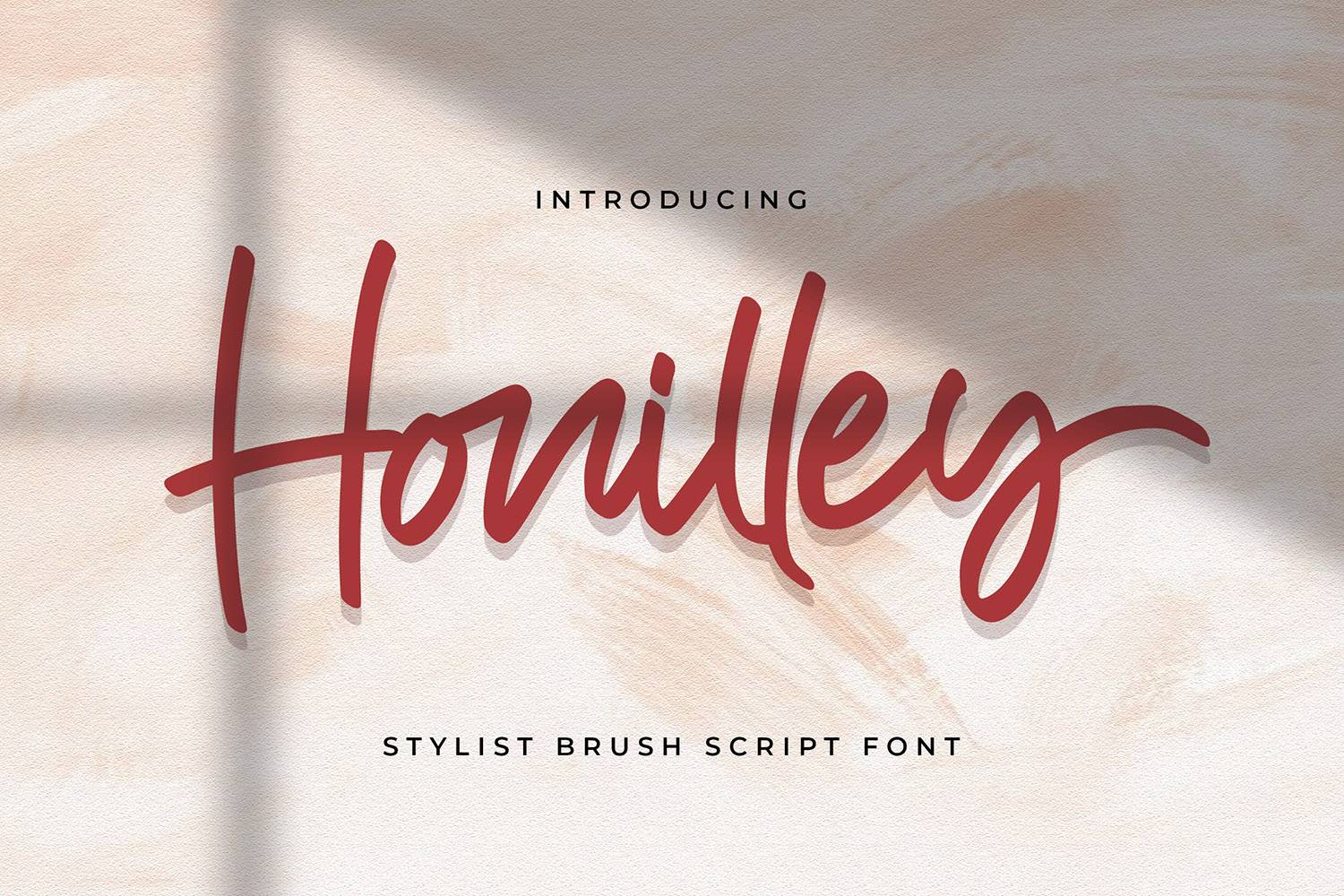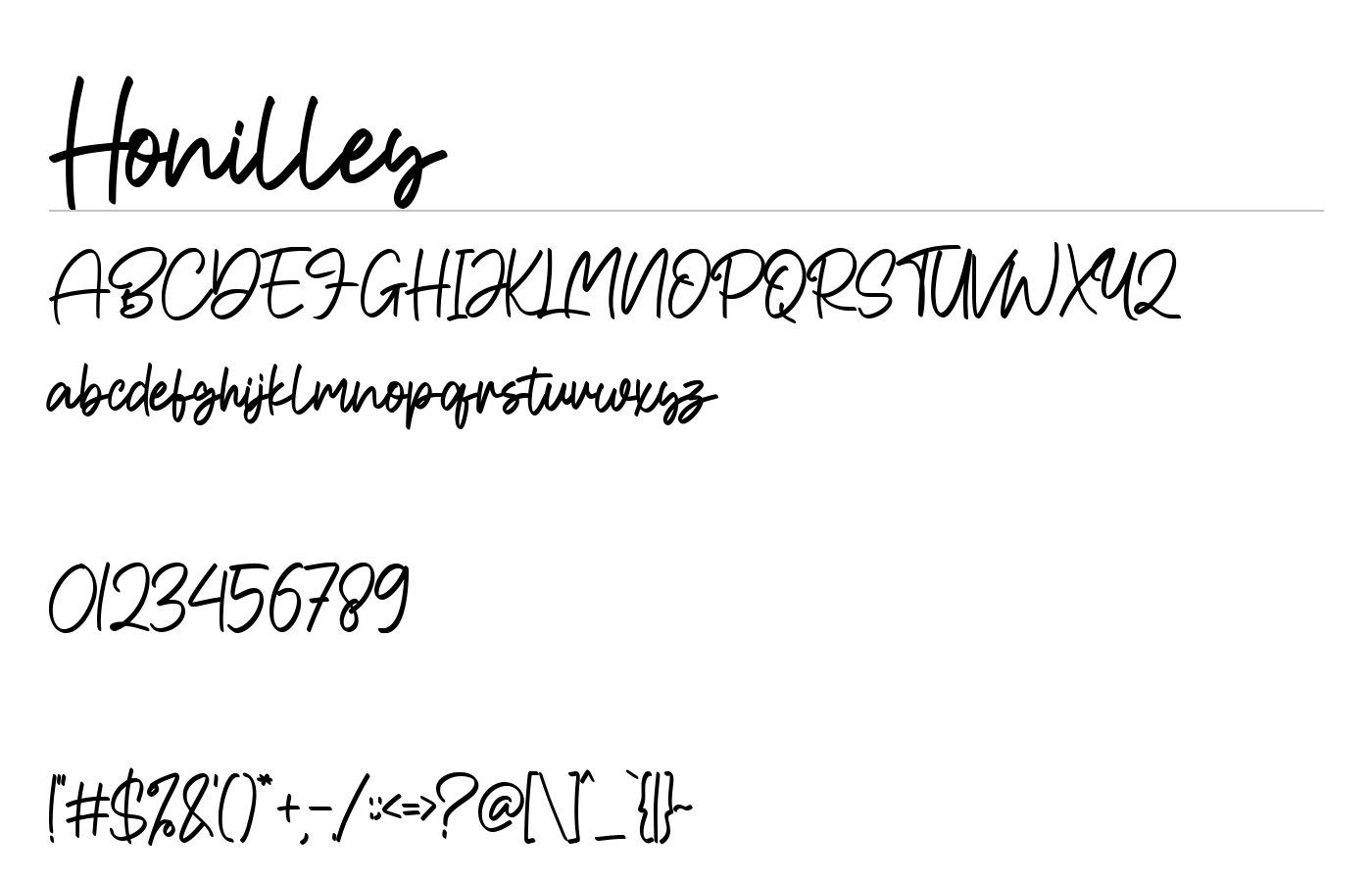
Honilley is a casual, handwritten script font with a lively and personal feel, featuring smooth, flowing strokes and a natural rhythm that resembles authentic penmanship. Its slender weight and moderate contrast make it perfect for adding a friendly, approachable touch to branding, invitations, and creative projects where warmth and personality are key. This font works well for headlines and logos that want to convey a relaxed yet stylish vibe.
| Font family | Honilley Font |
| Designer | Virgiawan Listanto. 2020 |